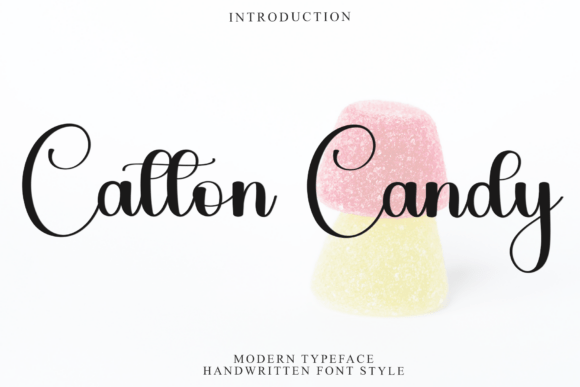
Introducing Catton Candy Font: A Festive and Merry Typeface for the Holiday Season
The holiday season is upon us, and what better way to get into the spirit than with a font that’s as festive and merry as Catton Candy Font? This decorative typeface is designed to capture the magic and enchantment of the holiday season, making it perfect for a wide range of projects, from greeting cards and gift tags to holiday-themed designs and more.
A Whimsical and Enchanting Typeface
Catton Candy Font is a whimsical and enchanting typeface that’s sure to add a touch of nostalgia and cheer to your designs. With its decorative elements and playful flair, this font is the perfect way to bring a little bit of holiday magic to your words. Whether you’re designing a holiday greeting card, a gift tag, or a festive holiday-themed project, Catton Candy Font is the perfect choice.
One of the standout features of Catton Candy Font is its unique and decorative design. The font features a range of intricate and detailed elements, including swirling patterns and festive motifs, that are sure to add a touch of enchantment to your designs. The font is also highly legible, making it easy to read and understand, even at smaller sizes.
Perfect for Holiday-Themed Projects
Catton Candy Font is the perfect choice for a wide range of holiday-themed projects. Whether you’re designing a holiday greeting card, a gift tag, or a festive holiday-themed design, this font is sure to add a touch of cheer and nostalgia to your words. The font is also highly versatile, making it suitable for a wide range of design applications, from digital designs to print materials.
Some of the key features of Catton Candy Font that make it perfect for holiday-themed projects include:
- Decorative elements: The font features a range of decorative elements, including swirling patterns and festive motifs, that are sure to add a touch of enchantment to your designs.
- Whimsical flair: The font has a playful and whimsical flair that’s sure to bring a little bit of holiday magic to your words.
- High legibility: The font is highly legible, making it easy to read and understand, even at smaller sizes.
PUA Encoded for Easy Access
One of the best things about Catton Candy Font is that it’s PUA encoded, which means you can access all of the amazing glyphs and ligatures with ease. PUA encoding allows designers to access a wide range of special characters and glyphs that can be used to add an extra touch of creativity and flair to their designs.
With Catton Candy Font, you can easily access a wide range of glyphs and ligatures, including:
- Festive motifs: The font features a range of festive motifs, including holly leaves, snowflakes, and Christmas trees.
- Swirling patterns: The font features a range of swirling patterns that can be used to add a touch of whimsy and flair to your designs.
- Special characters: The font includes a range of special characters, including dingbats and other decorative elements.
Why Choose Catton Candy Font?
So why choose Catton Candy Font for your holiday-themed designs? Here are just a few reasons why this font is the perfect choice:
- Festive and merry: The font is designed to capture the spirit of the holiday season, making it perfect for holiday-themed designs.
- Decorative elements: The font features a range of decorative elements, including swirling patterns and festive motifs.
- Whimsical flair: The font has a playful and whimsical flair that’s sure to bring a little bit of holiday magic to your words.
- High legibility: The font is highly legible, making it easy to read and understand, even at smaller sizes.
- PUA encoded: The font is PUA encoded, making it easy to access a wide range of glyphs and ligatures.
In conclusion, Catton Candy Font is a festive and merry typeface that’s perfect for holiday-themed designs. With its decorative elements, whimsical flair, and high legibility, this font is sure to add a touch of enchantment to your words. And with PUA encoding, you can easily access a wide range of glyphs and ligatures to add an extra touch of creativity and flair to your designs.